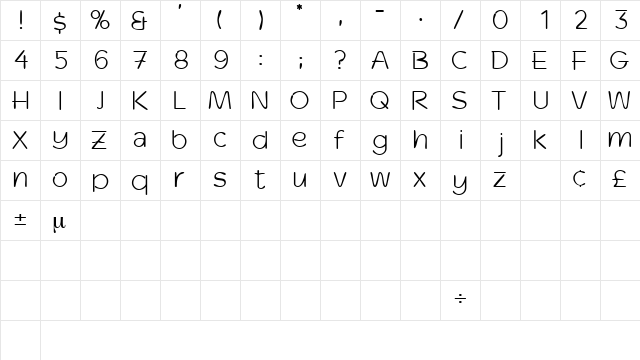
DinkoSSK Regular
Design Context for DinkoSSK Typeface
DinkoSSK is a composed and adaptable typeface that performs quietly and consistently across a wide range of design contexts.